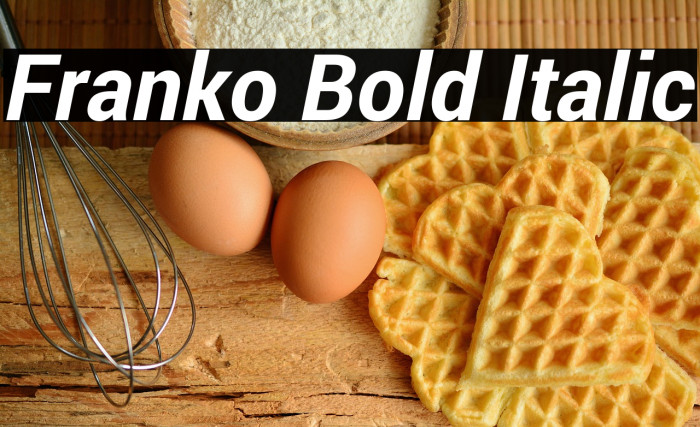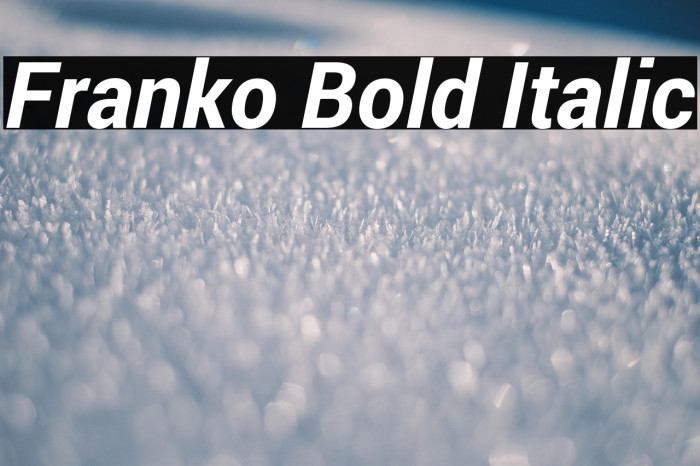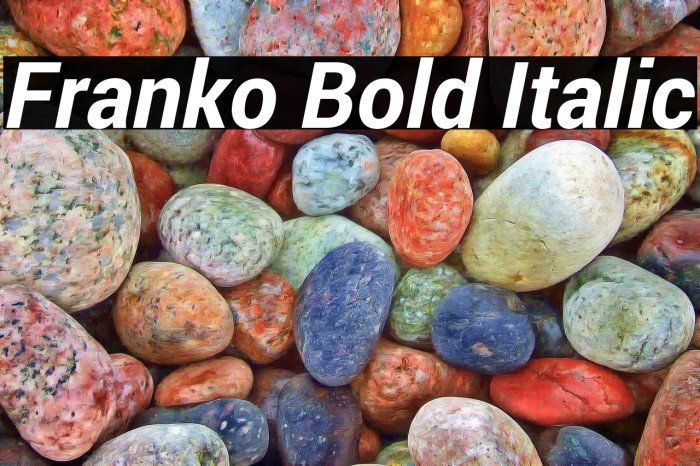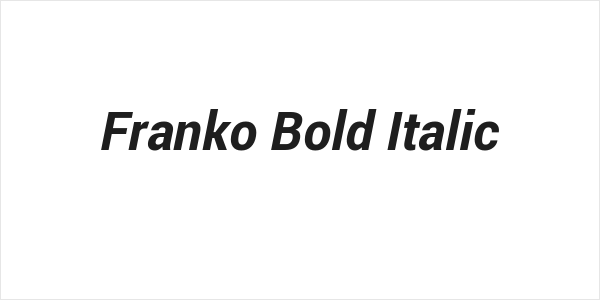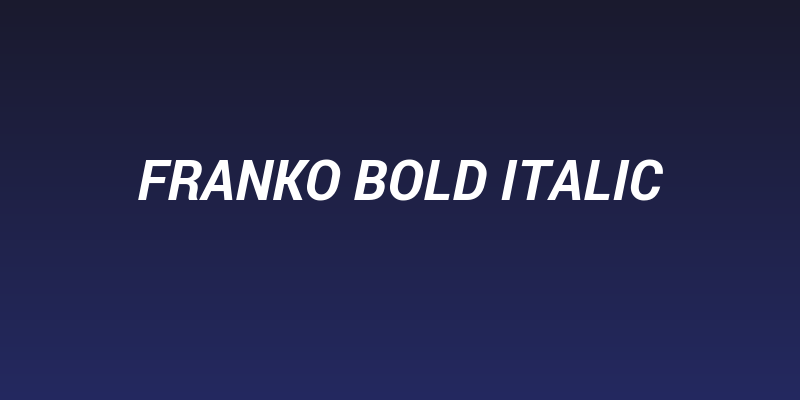
Franko Bold Italic Font
Franko Bold Italic Description
This font features a bold and italic style, offering a dynamic and assertive appearance. The characters are slightly slanted, enhancing the italic effect, while maintaining a strong and confident presence due to the bold weight. The sans-serif design ensures a clean and modern look, making it versatile for various applications. The strokes are consistent in thickness, providing a medium contrast that balances readability with style. The character spacing is normal, allowing for clear legibility without appearing cramped or overly spaced.
| Use Case | Headlines, Logos, Advertising |
| Proposed Projects | Ideal for headlines, advertising, branding, and any project requiring a strong, modern typeface. |